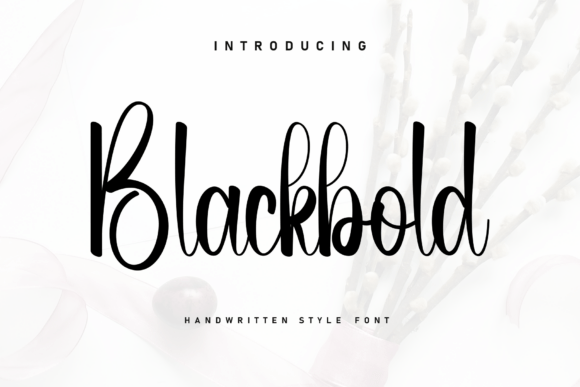
The Perfect Font for Your Next Design Project: Blackbold
I’ll never forget the time I was working on a branding project for a small business, and I just couldn’t find the right font. The client wanted something that felt warm and inviting, but also professional and polished. I spent hours scouring the internet, trying out font after font, but nothing seemed quite right. That was until I stumbled upon Blackbold, a charming handwritten font that stole my heart. ✨
An Honest Review of Blackbold
What I Love About Blackbold
- ✨ Smooth strokes and organic lines that evoke a relaxed atmosphere
- ✅ Perfect for a variety of design projects, from branding to social media graphics
- 💕 Heartfelt and charming, with a touch of personality
- 🎨 Highly versatile, with multiple uses and applications
While Blackbold is an amazing font, it’s not perfect. Here are a few things to keep in mind:
- 🤔 Some characters may not work well in very small sizes, due to the font’s handwritten nature
- ⚠️ Limited availability of certain OpenType features, such as ligatures or stylistic alternates
The Backstory Behind Blackbold
Blackbold was designed by a talented type designer who wanted to create a font that felt warm and inviting. The designer drew inspiration from classic handwritten fonts, but with a modern twist. The result is a font that’s both elegant and approachable, perfect for a wide range of design projects.
Q: What is Blackbold?
A: Blackbold is a charming handwritten font filled with a sense of heartfelt perfection. Its smooth strokes and organic lines evoke a relaxed atmosphere, making it perfect for a variety of design projects.
Q: Is Blackbold suitable for body text?
A: While Blackbold is a beautiful font, it’s best used for headings, titles, or emphasis. Due to its handwritten nature, it may not be suitable for large blocks of body text.